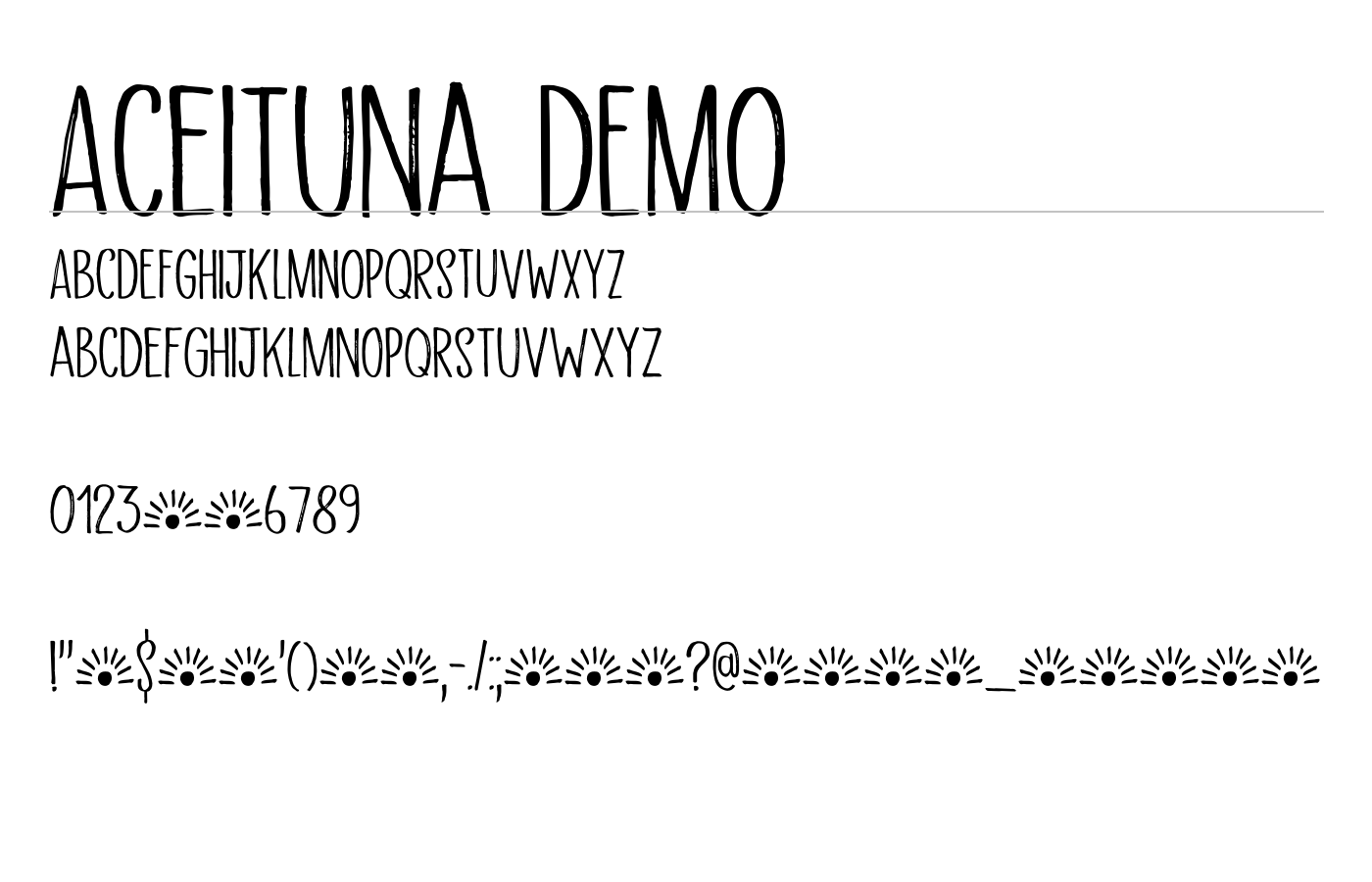
Aceituna DEMO is a tall, narrow sans serif font with a hand-drawn, playful character. Its thin, uneven strokes give it a casual and whimsical feel, making it perfect for creative projects needing a friendly and informal touch. This font works well for headlines, logos, or packaging where a unique, approachable style is desired.
Aceituna DEMO Font
About Aceituna DEMO Font